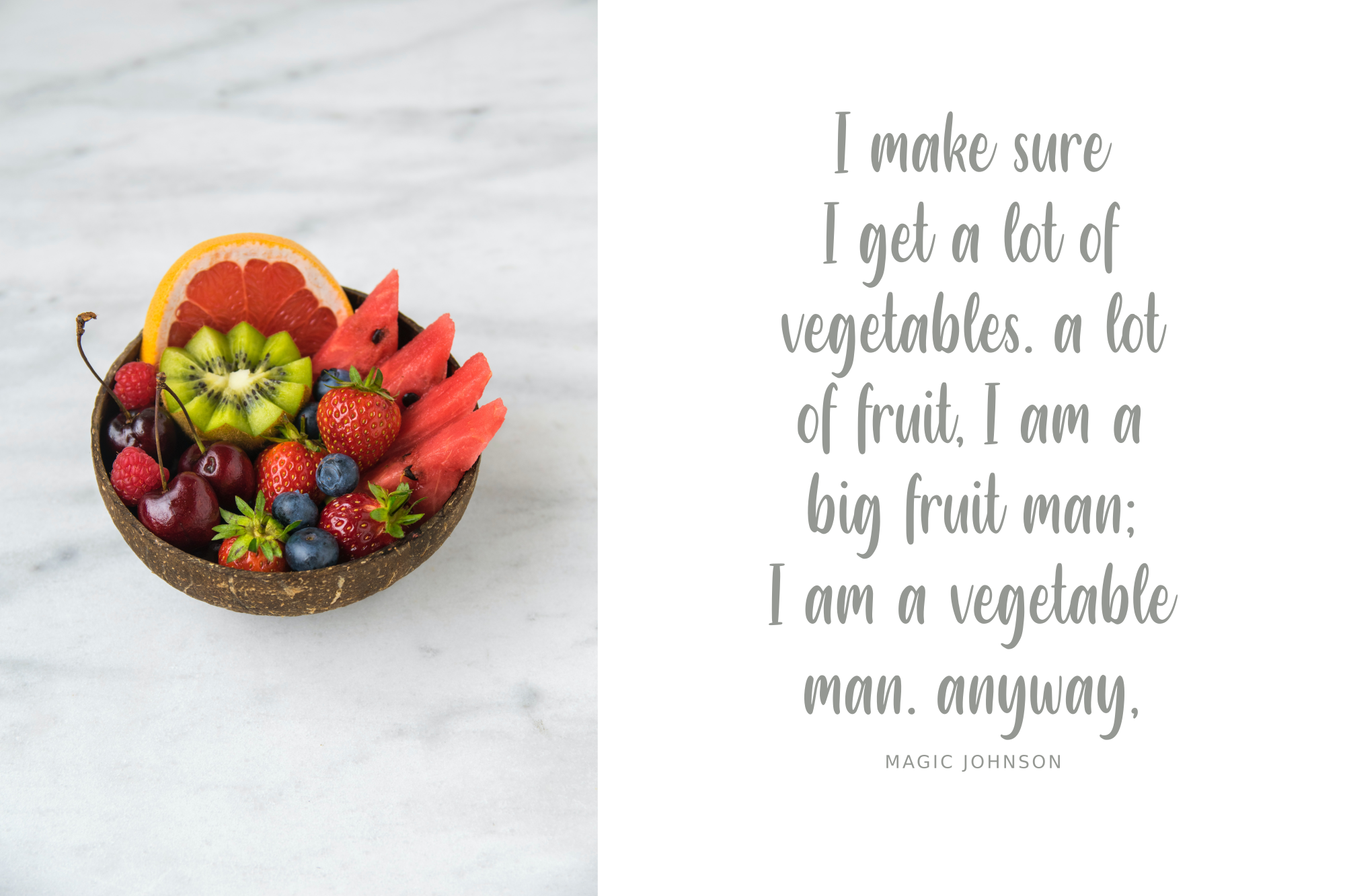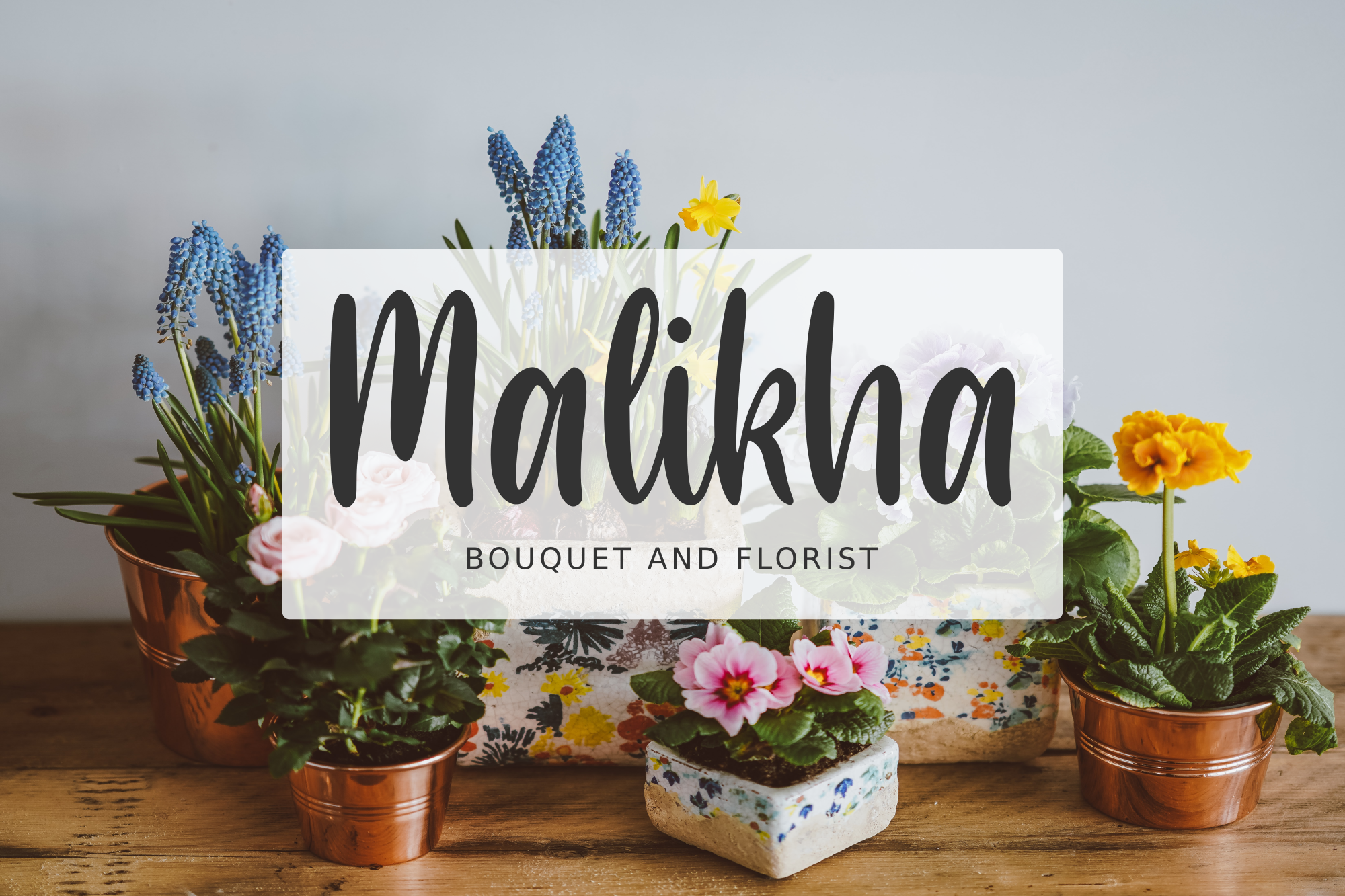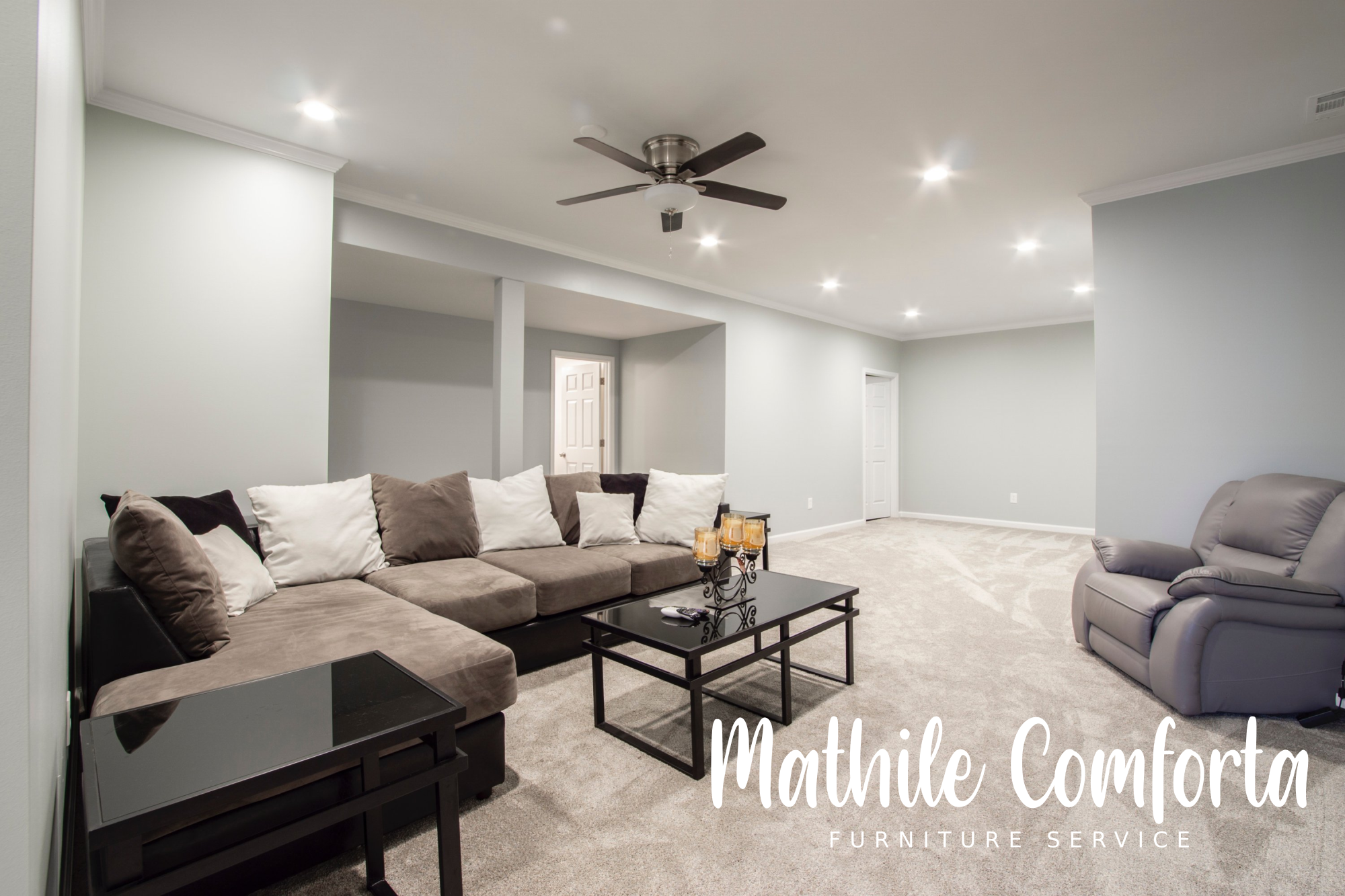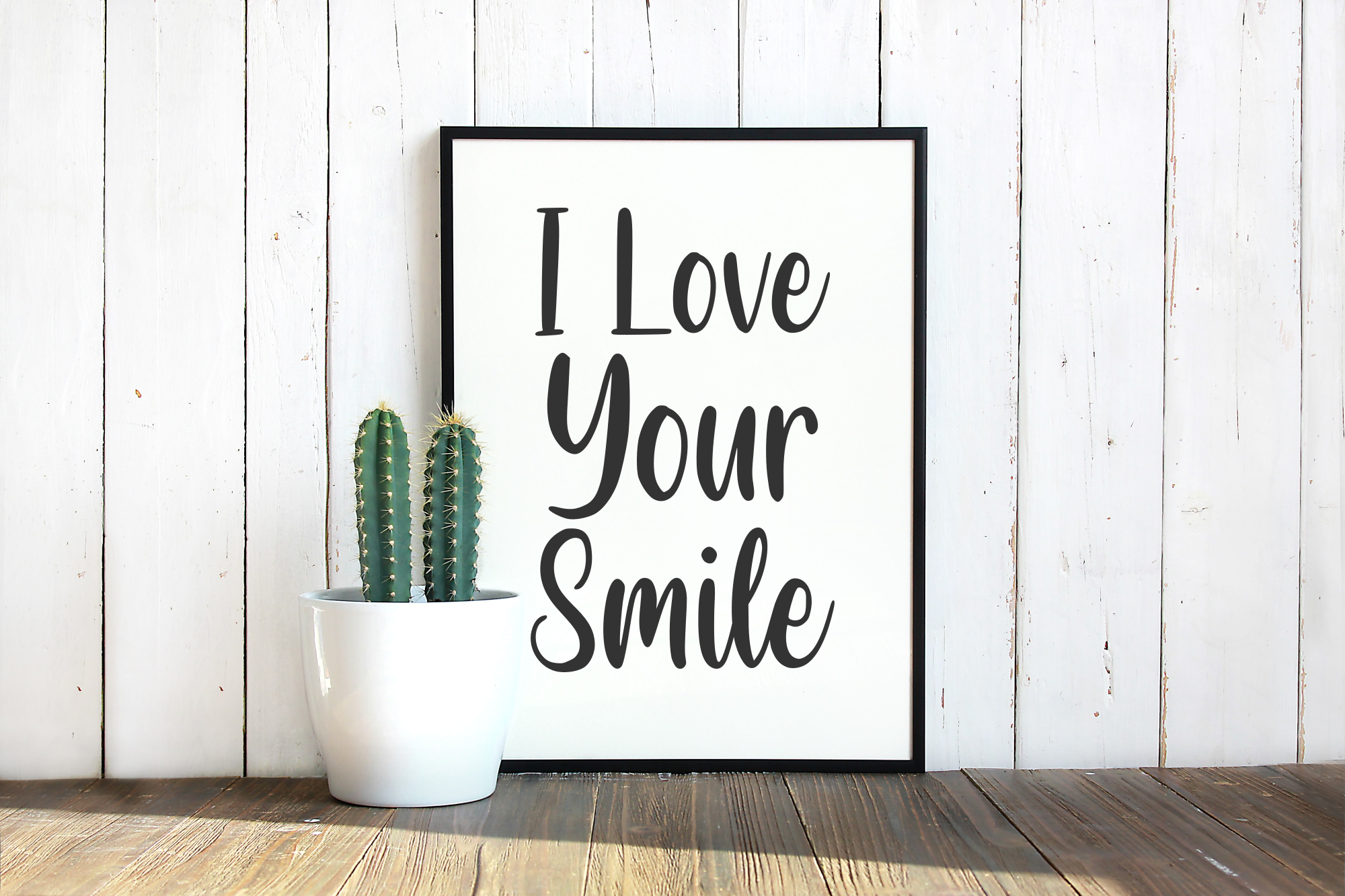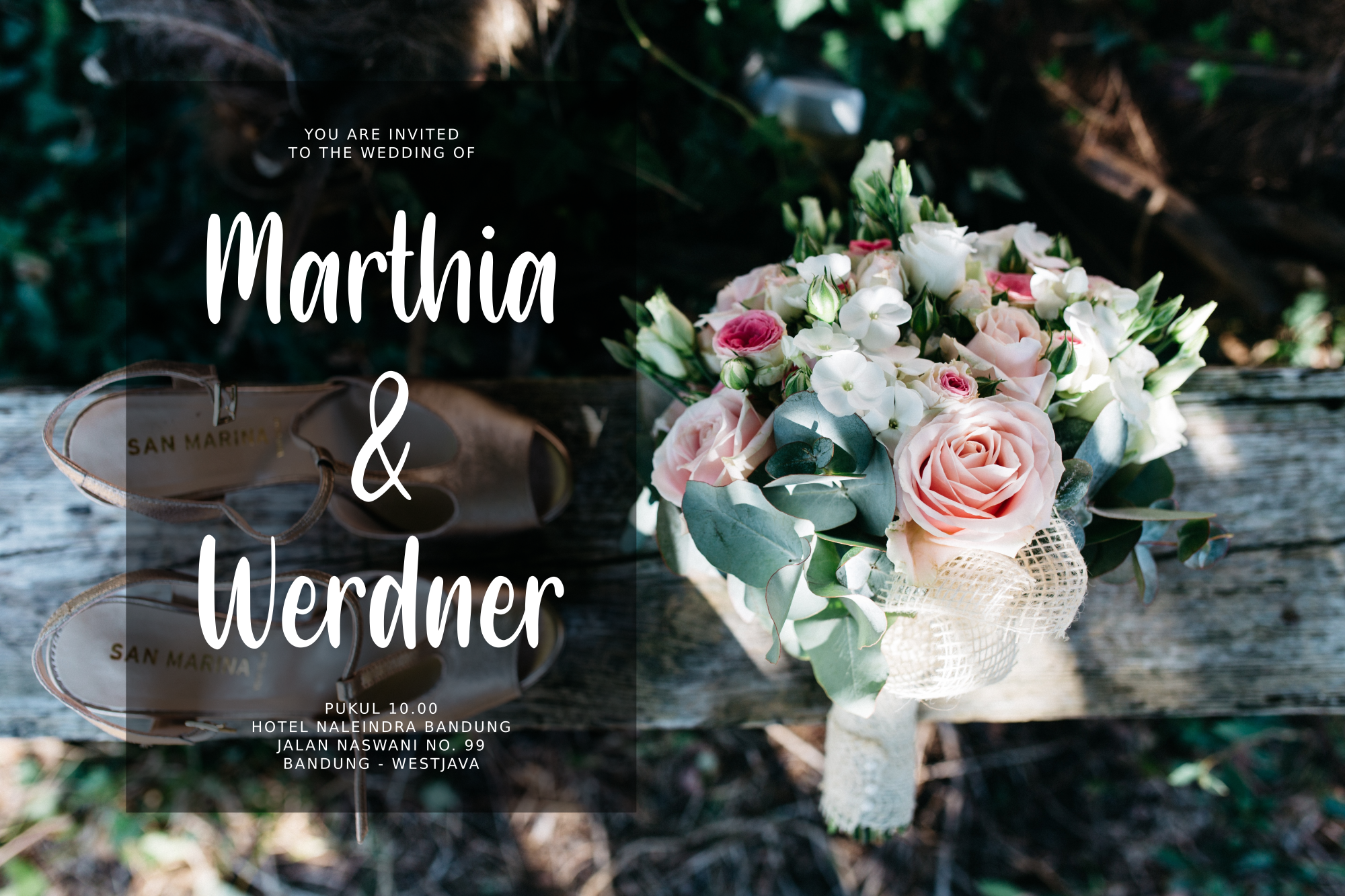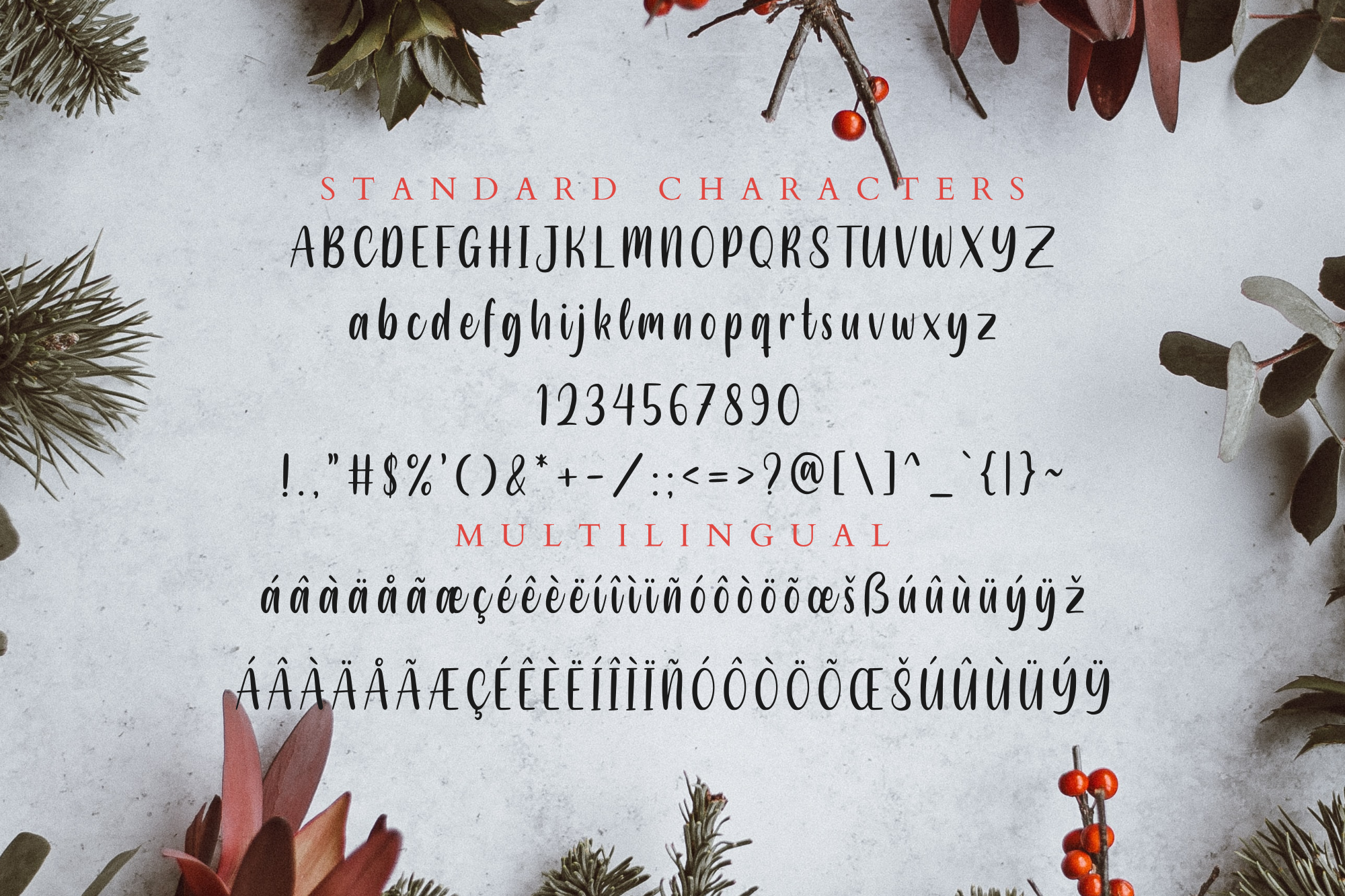
Hasley Bellion - Handwritten Font
Hasley Bellion is a charming and elegant handwritten font inspired by classic calligraphy. It features a varying baseline, smooth lines, beautiful glyphs, and stylish alternates.
Hasley Bellion is a charming and elegant handwritten font inspired by classic calligraphy. It features a varying baseline, smooth lines, beautiful glyphs, and stylish alternates. It is perfect for logos, wedding designs, branding, invitations, stationery, packaging, quotes, and more.